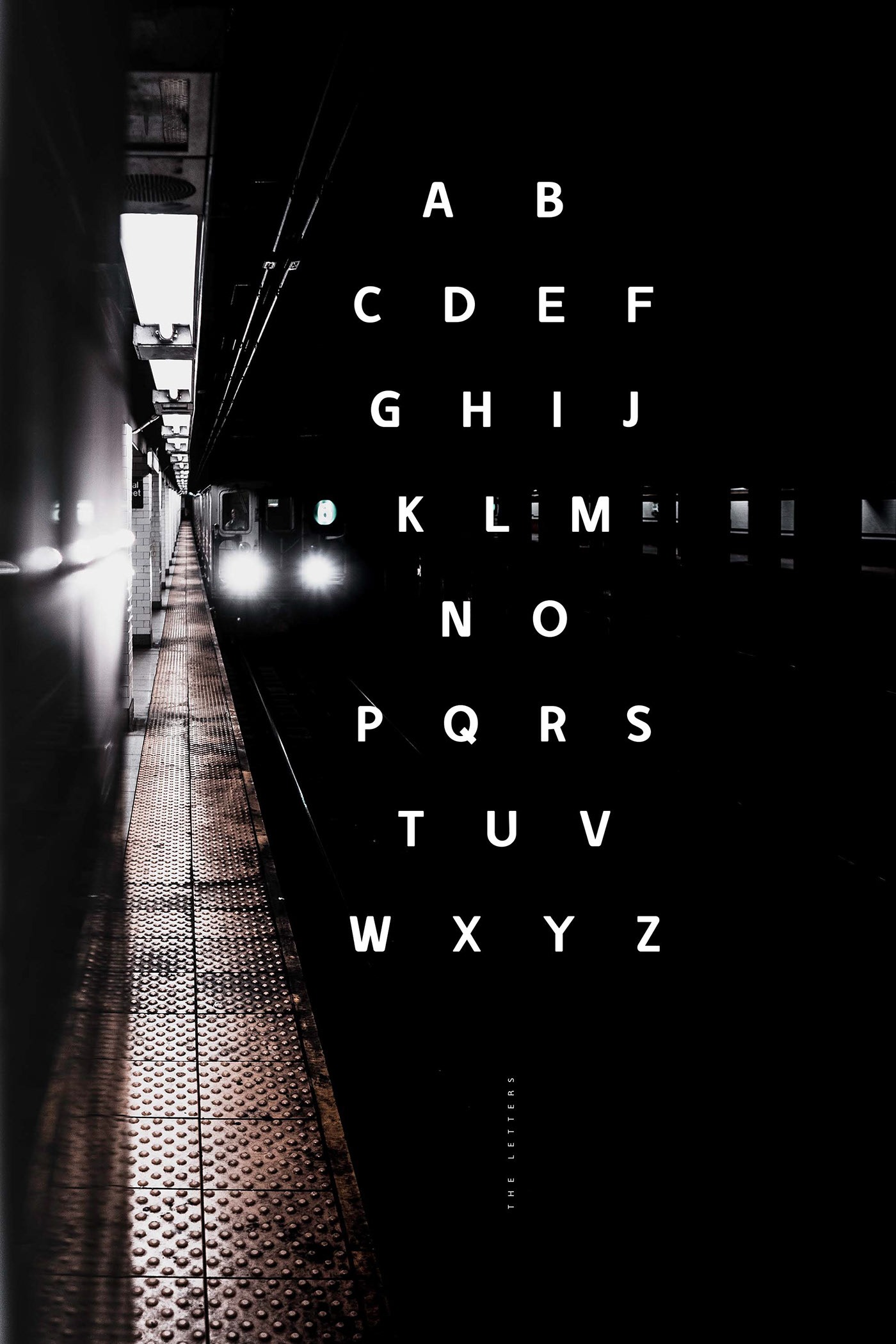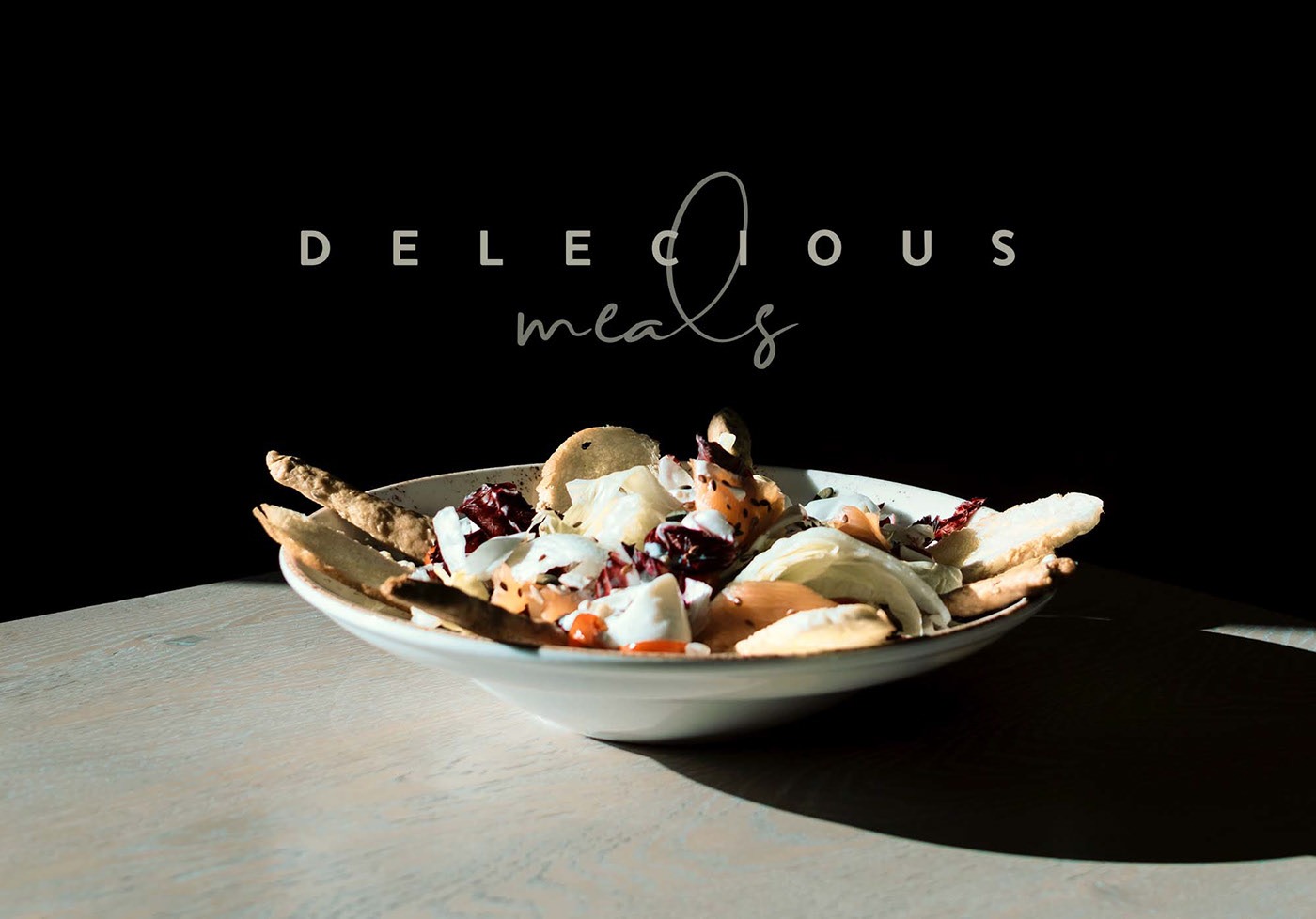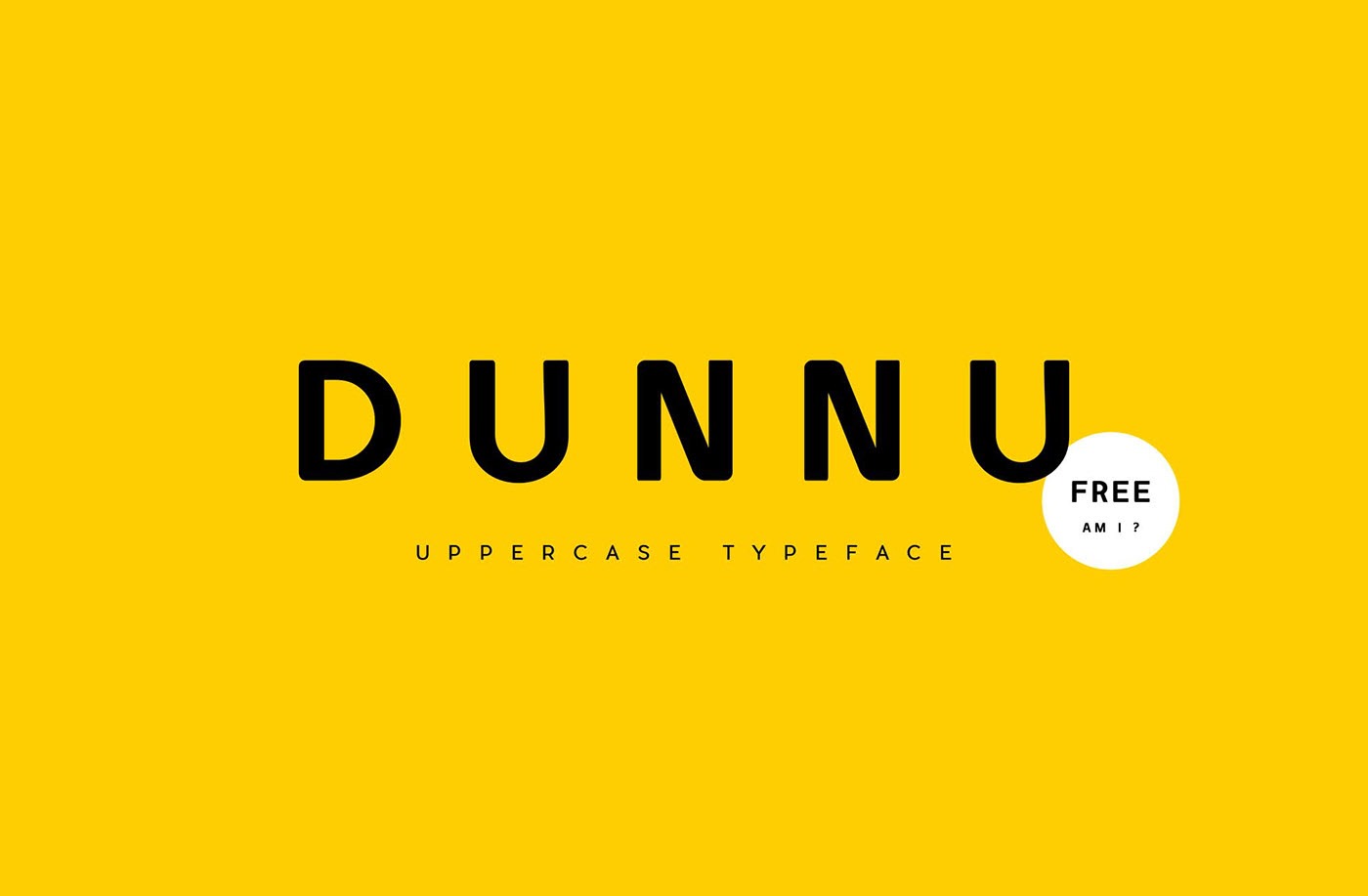
Dunnu Font
Dunnu Sans Serif Font is a modern and strong sans serif with a beautiful contrast. It has a sort of geometric structure and soft corners. It is perfect for poster design, logos and all sort of headings. You can adjust the spacing between letters to create various parings and visual variations. Dunnu font works perfectly for logos that consist of few letters. Little twists with the letters to convey a certain message will be an added value and get you more uniqueness.